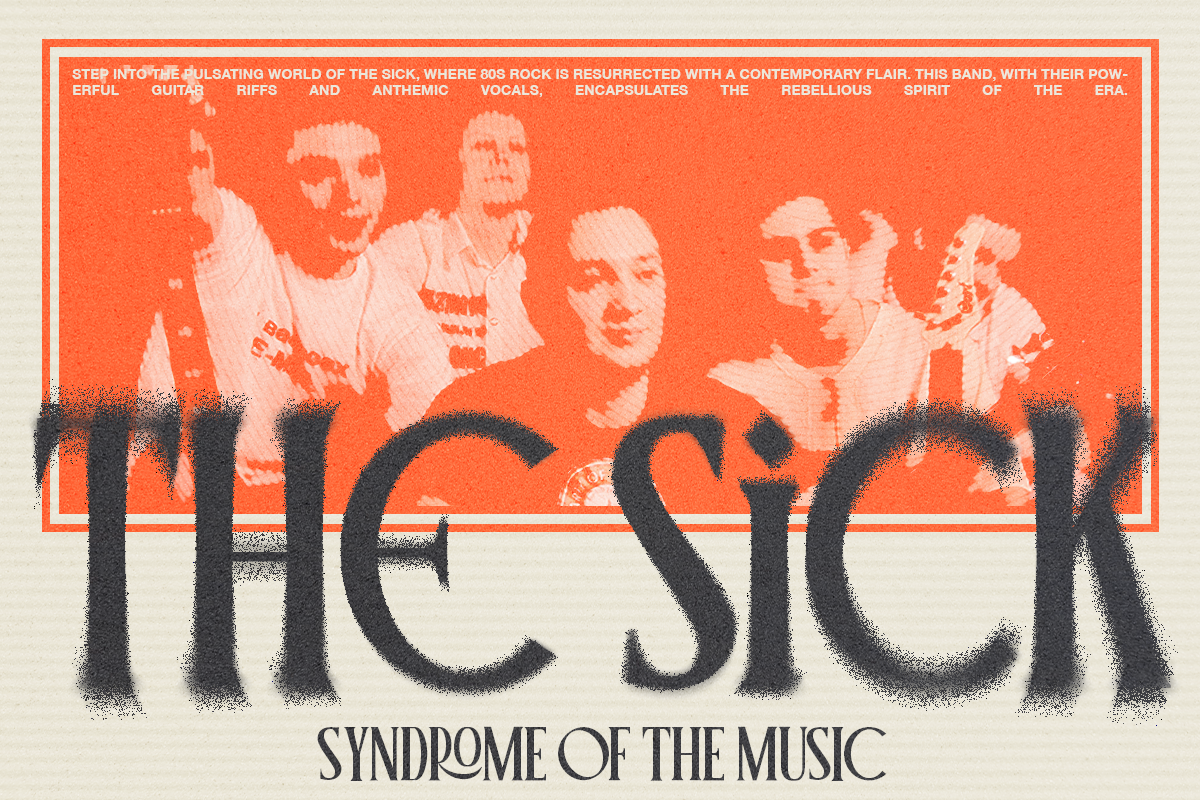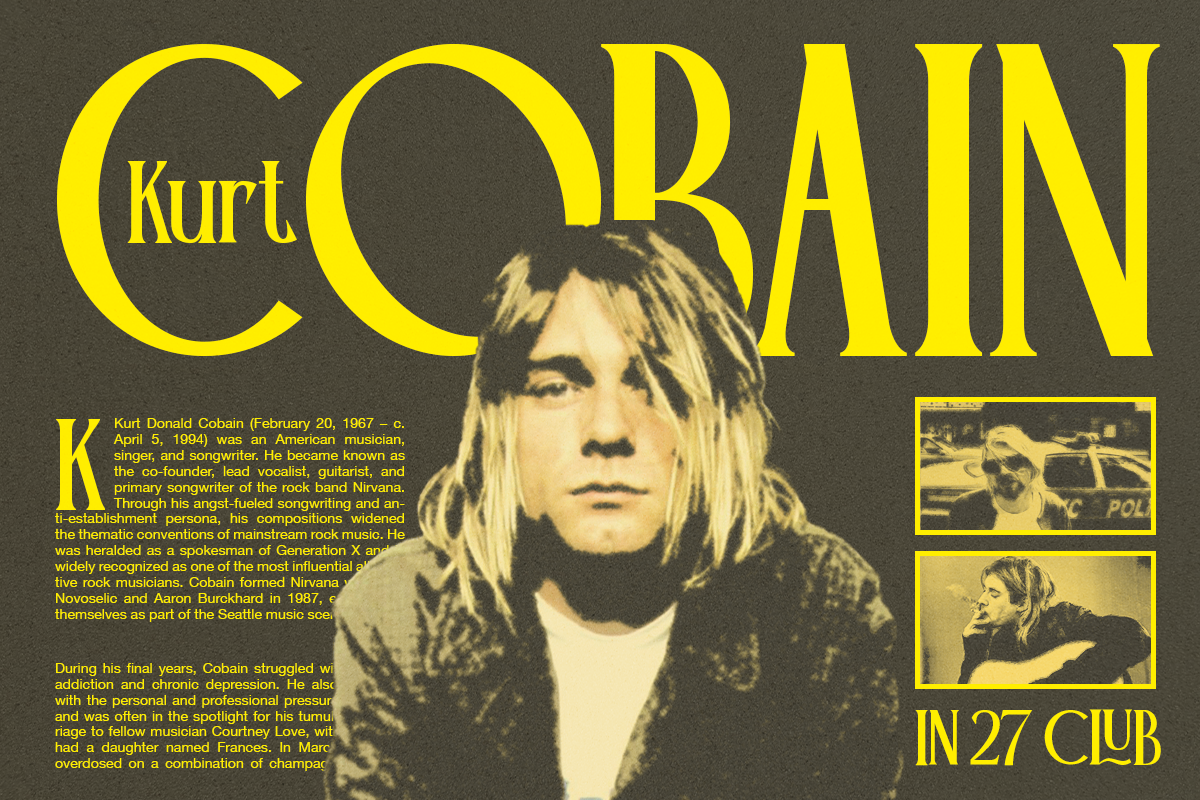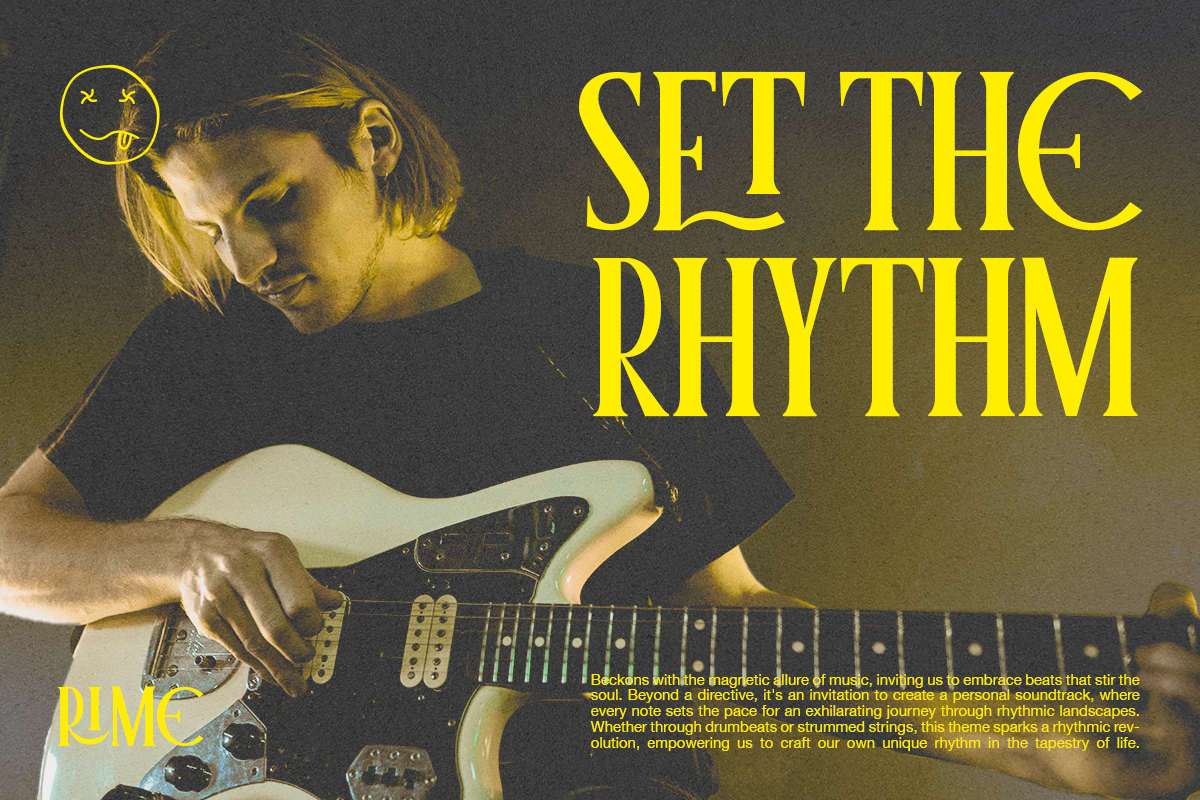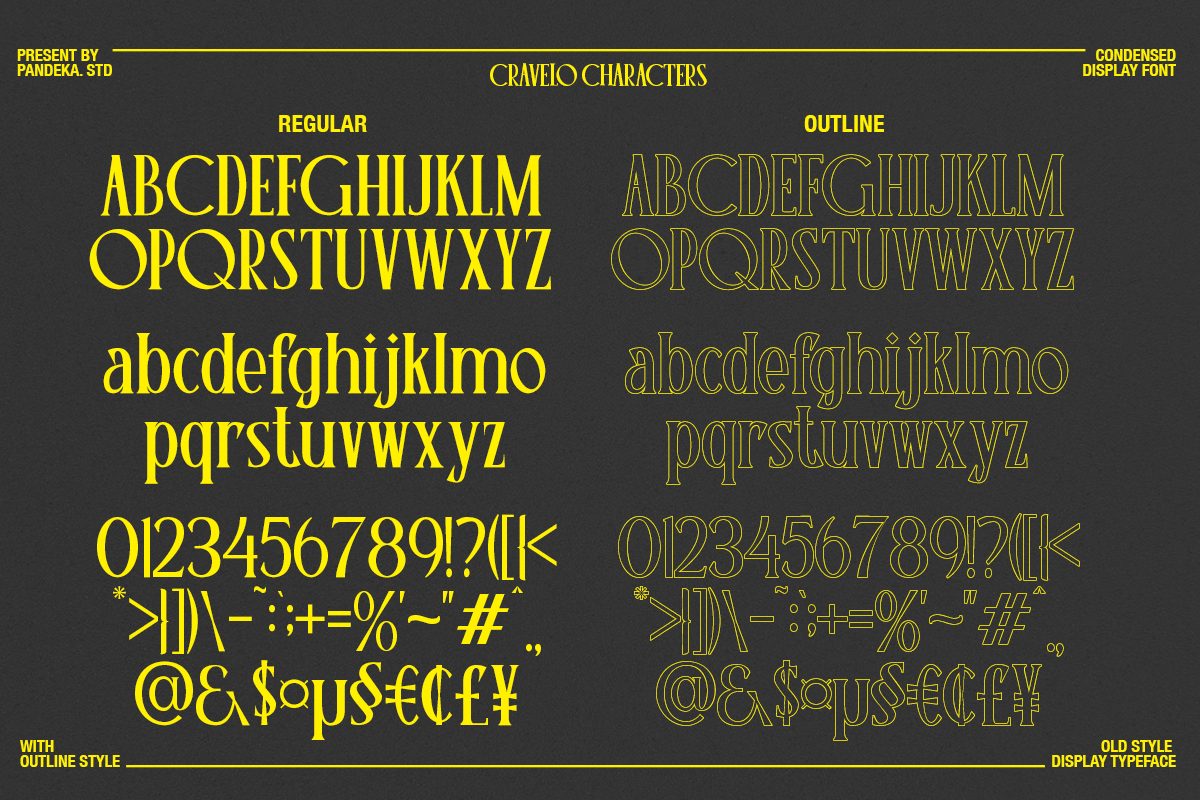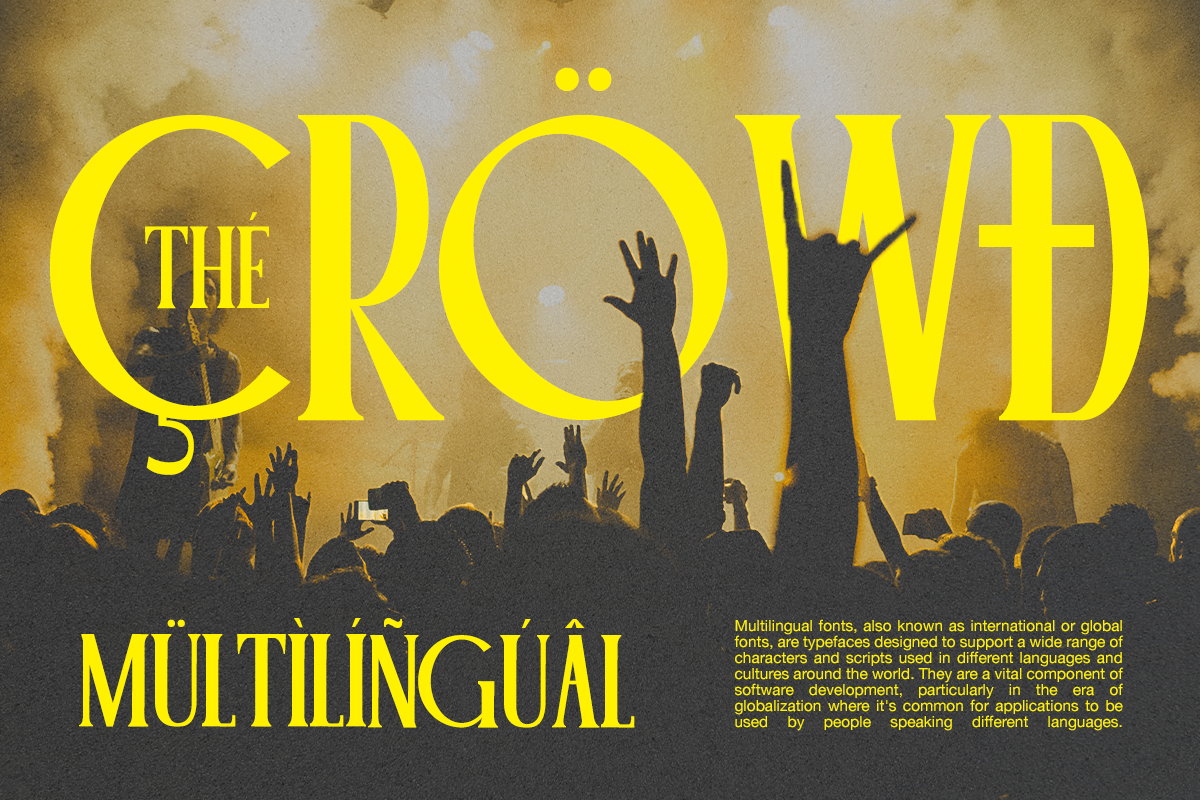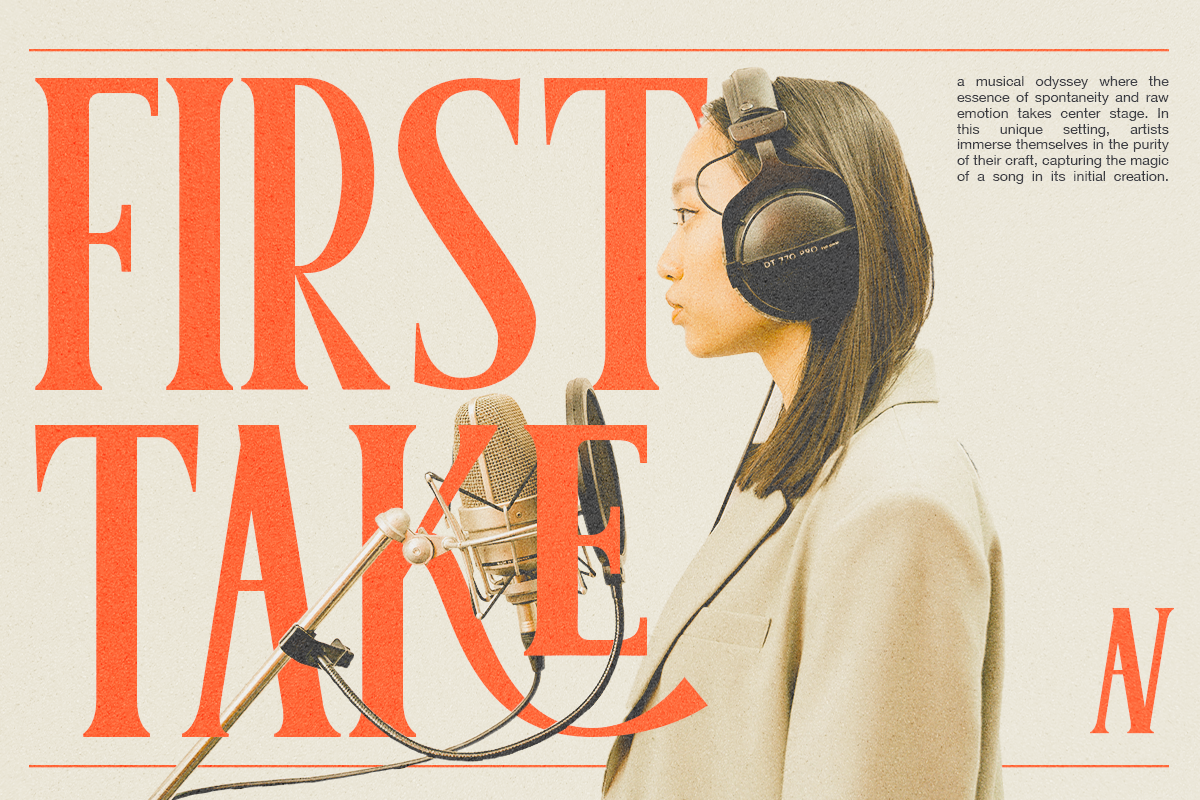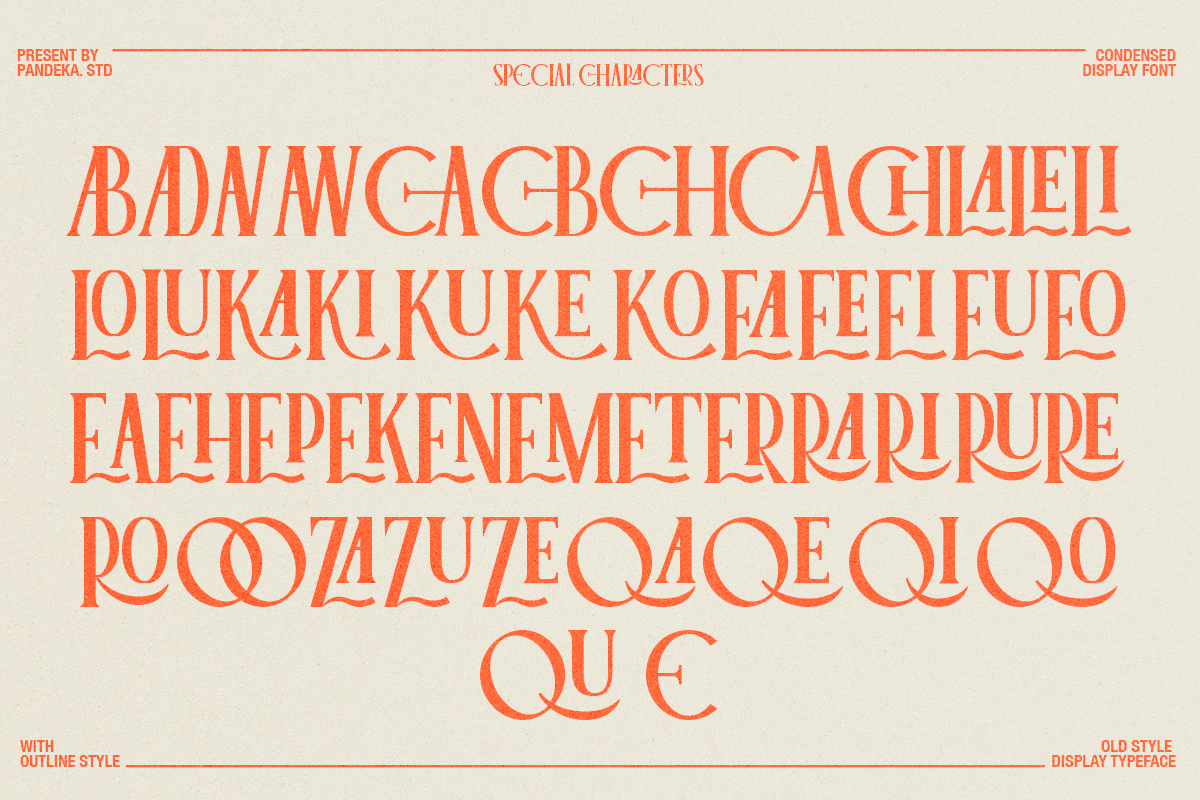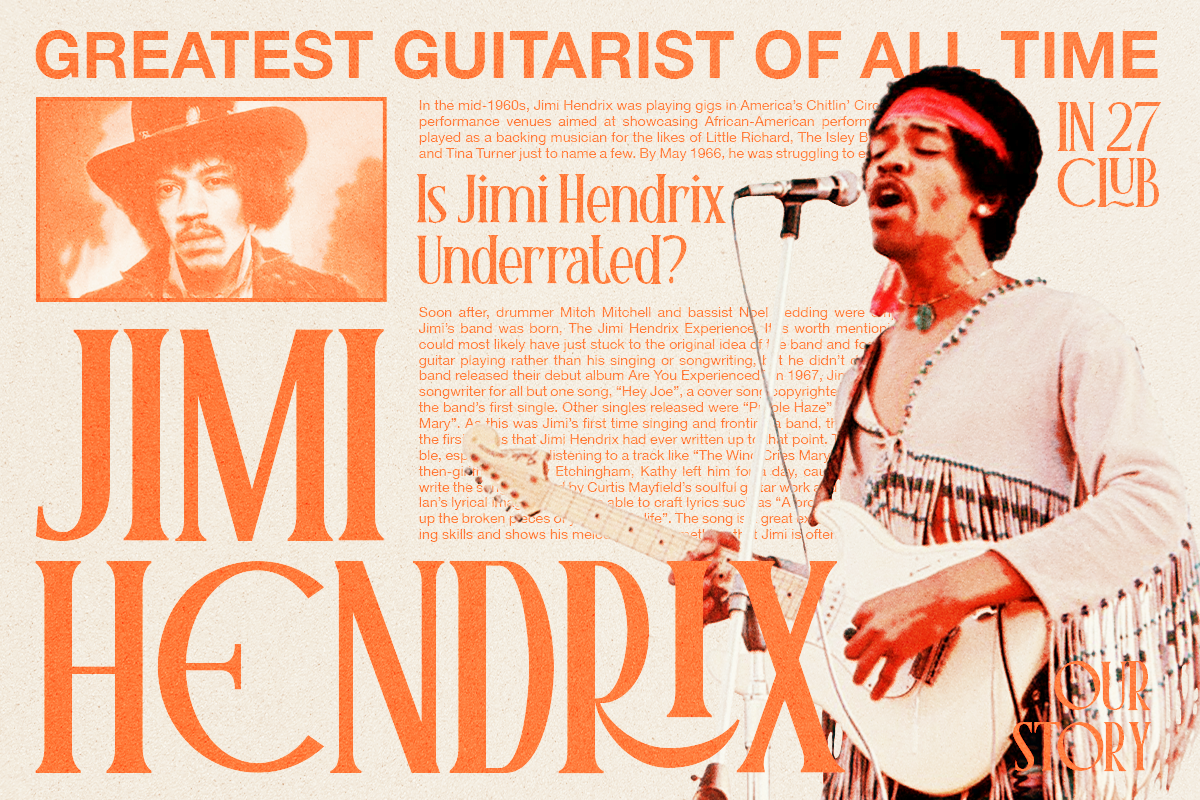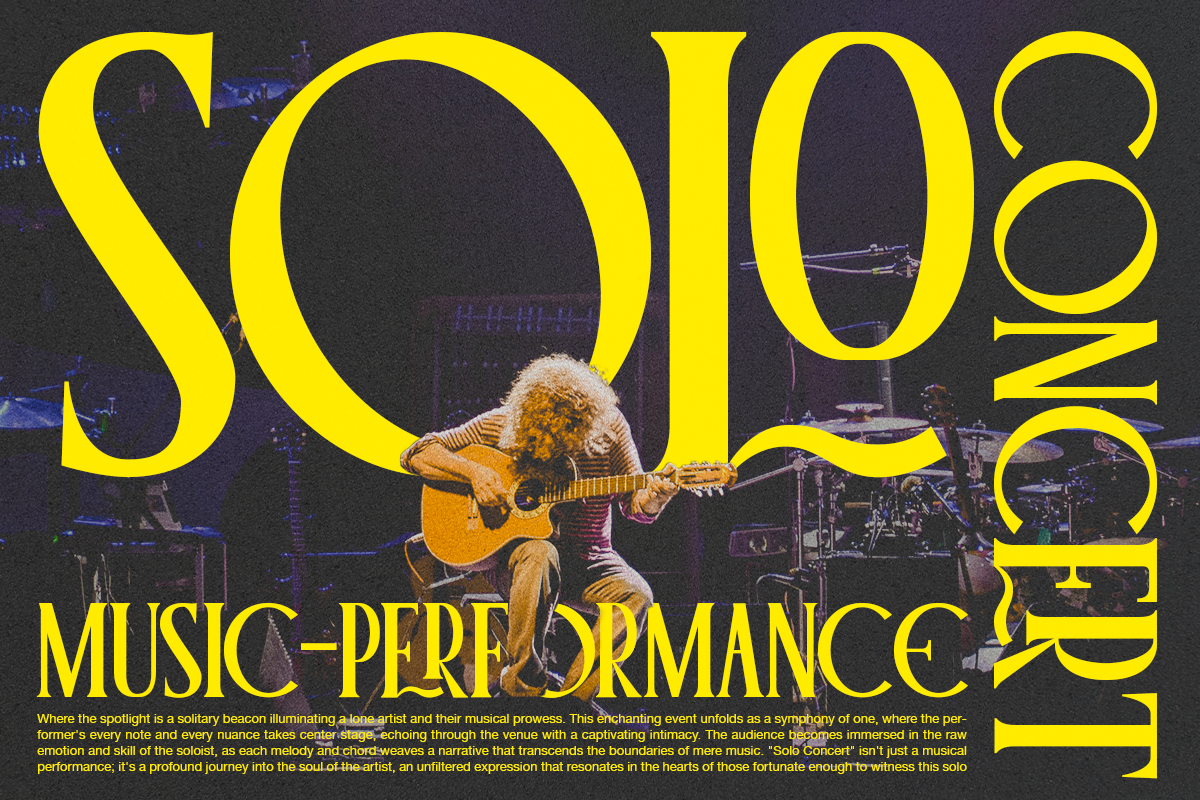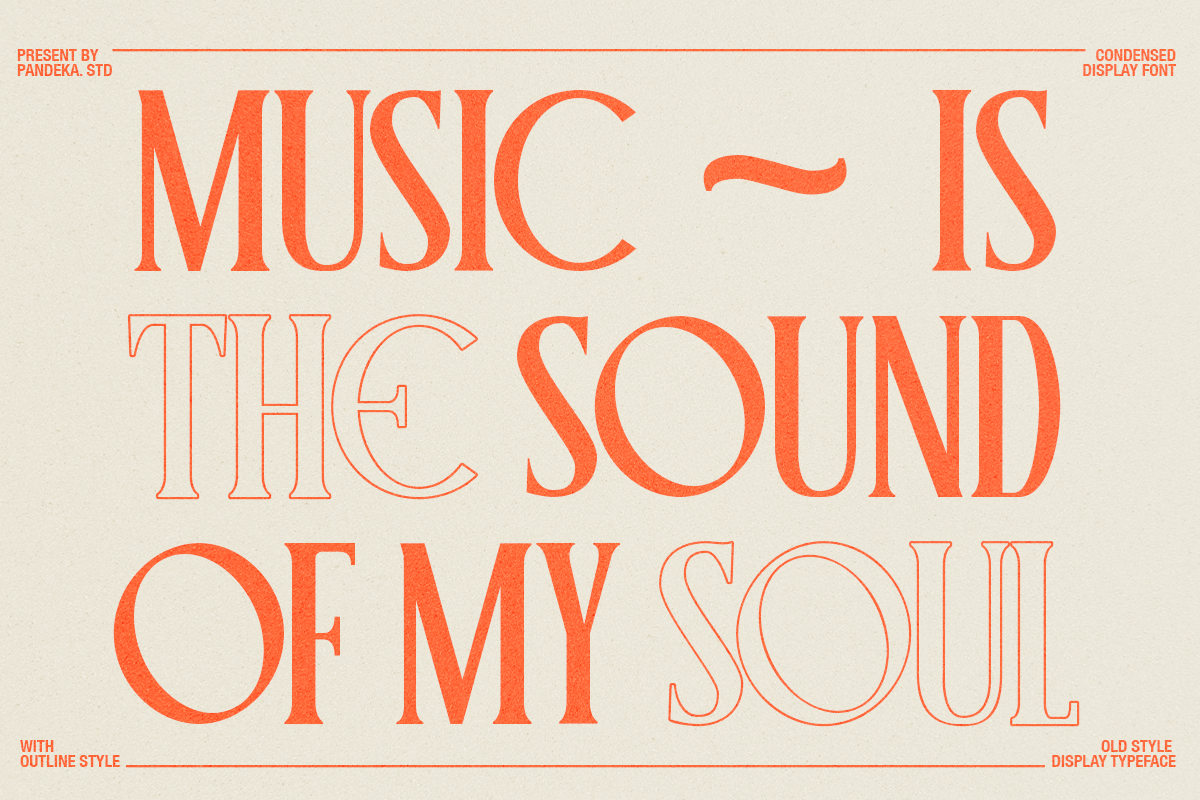
Cravelo - Vintage Rounded Serif
Cravelo is a vintage retro condensed display typeface combined with rounded proportions lettersforms. The combination of condensed glyphs with large-rounded O and C as well as the few alternates available give the font a strong rhythm, perfectly fit for headline and titles.
If you're into classic/vintage letter designs, then this typeface suits best for you. Packed with 300+ glyphs (alternate and multilingual characters included), now it’s your time to go crazy and explore the uniqueness of this typeface!
- Regular and Outline